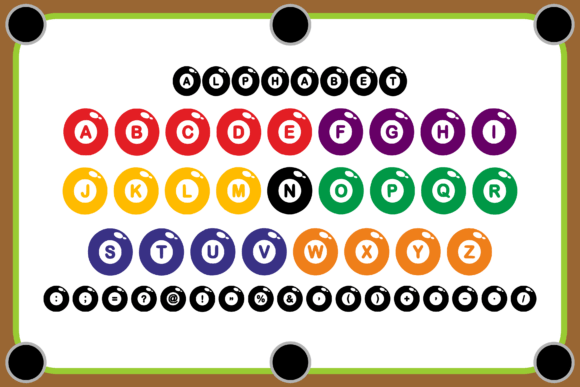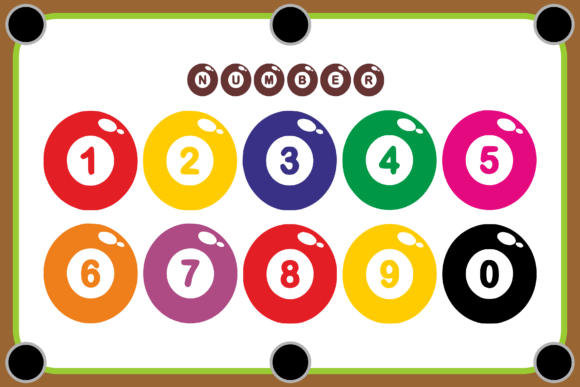
Introducing Billiard Ball: The Playful Font That’s a Hole-in-One for Designers!
I’ll never forget the time I was working on a party invitation project for a friend’s milestone birthday. I had all the design elements ready – the colors, images, and layout – but something was missing. The font I was using just wasn’t cutting it; it was too bland, too boring. I needed something that would capture the fun and playful vibe of the party. That’s when I stumbled upon Billiard Ball, a whimsically unique font that instantly brought my design to life!
The Billiard Ball Font: A Designer’s Dream Come True
Billiard Ball is a font inspired by the unmistakable round charm of classic billiard balls. Every character embodies a delightful roundness, packed with personality that is sure to add flair to your designs. Imagine party invitations where each word adds to the fun, or adorable stickers graced with this rounded font. From mugs that’ll make coffee conversations intriguing to greeting cards that’ll win hearts at first sight, Billiard Ball seamlessly adds charm to all.
- ✨ Unique and playful design that’s sure to grab attention
- ✅ Highly versatile and adaptable to various design projects
- 💬 Excellent for use in children’s party invitations, stickers, and other fun designs
- 👍 Works beautifully in both digital and print formats
⚠️ While Billiard Ball is an amazing font, it’s not suitable for very formal or professional designs. Its playful nature might not be the best fit for projects requiring a more serious tone. 🤔 Additionally, some characters might appear a bit distorted when used at very small sizes.
The Designer Inspiration Behind Billiard Ball
The story behind Billiard Ball begins with a designer’s love for classic billiard balls. The creator wanted to capture the fun, playful essence of these iconic balls and bring it to the world of typography. After months of experimentation and refinement, Billiard Ball was born – a font that’s equal parts whimsical and charming.
Q: What type of designs is Billiard Ball best suited for?
A: Billiard Ball is perfect for party invitations, stickers, mugs, greeting cards, and other fun designs that require a playful touch.